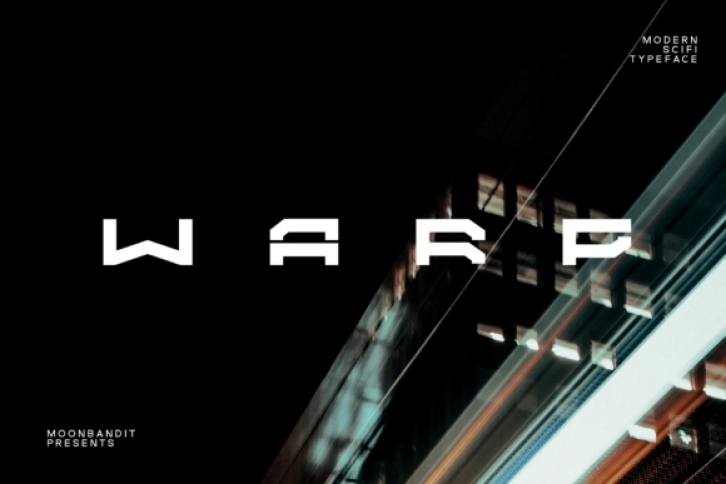
Warp is a modern display font. It celebrates abstract shapes in all their eclectic beauty. Add this font to your creative ideas and notice how it will make them stand out!